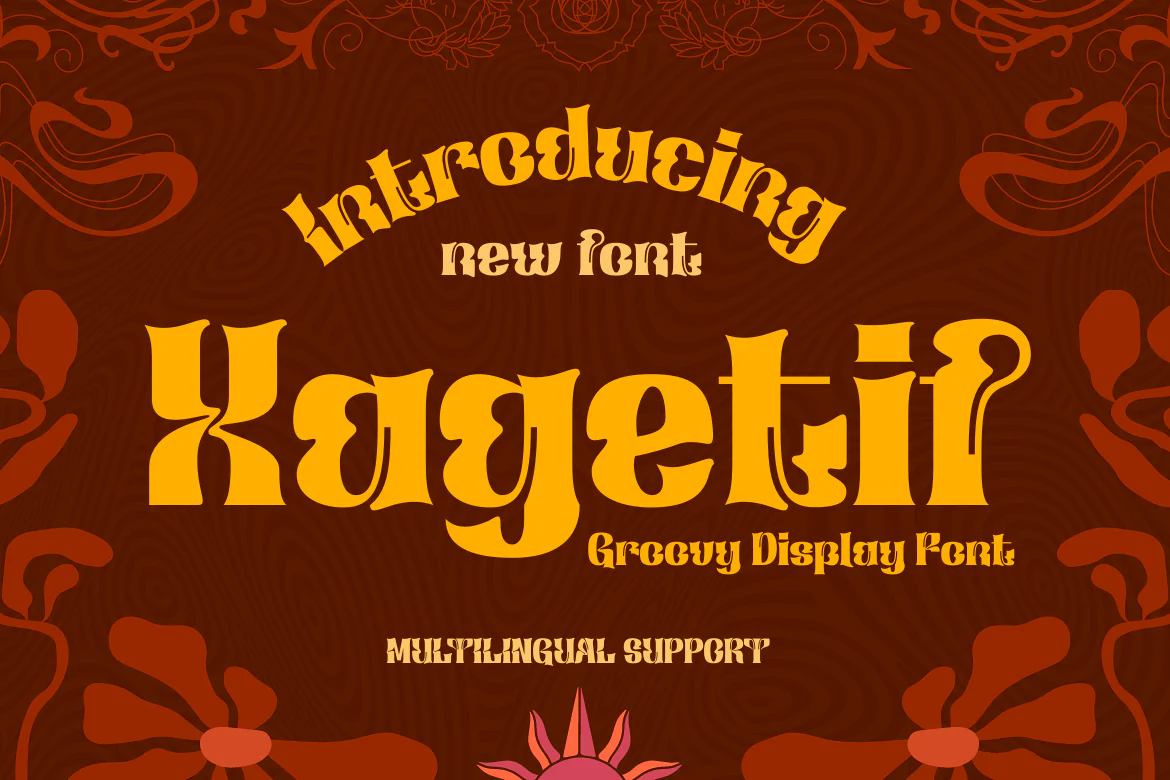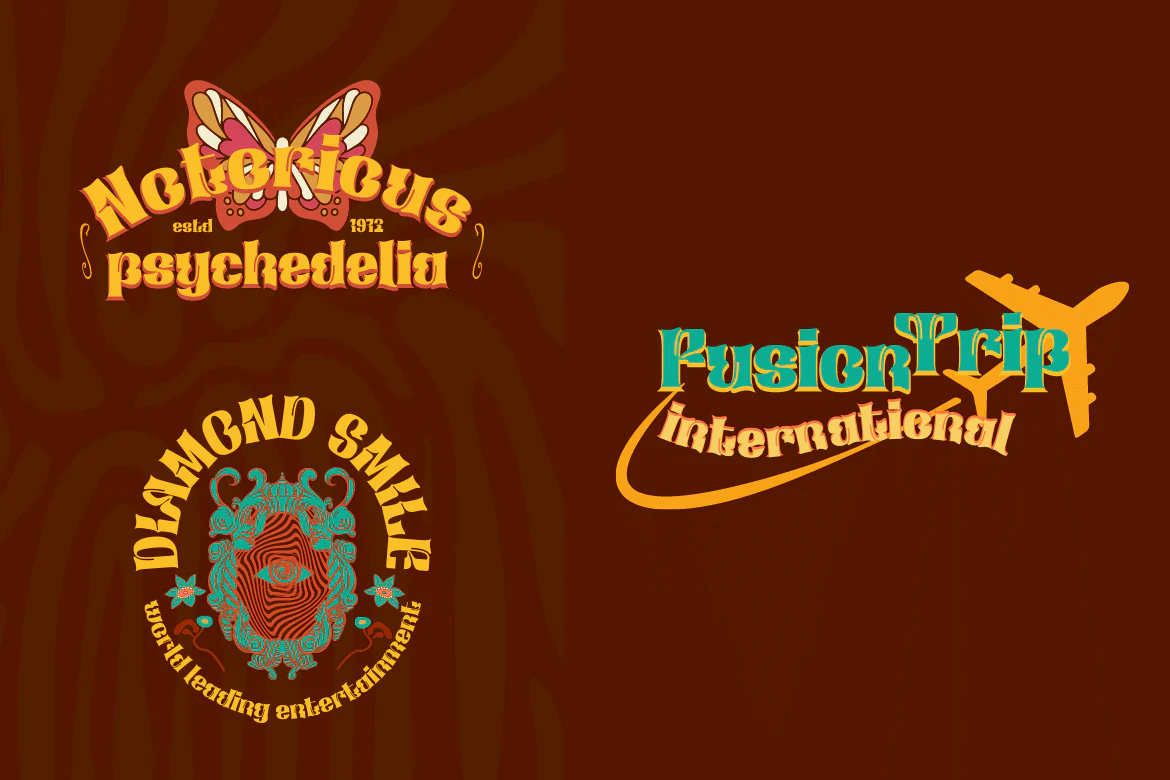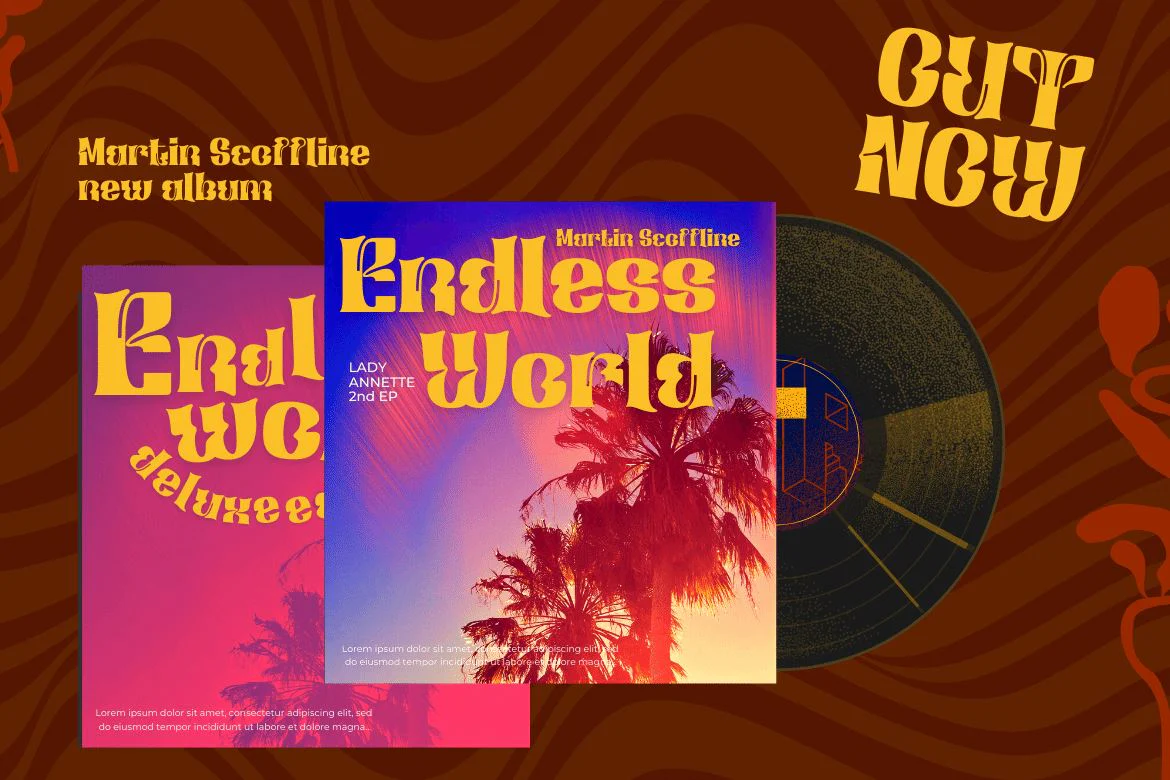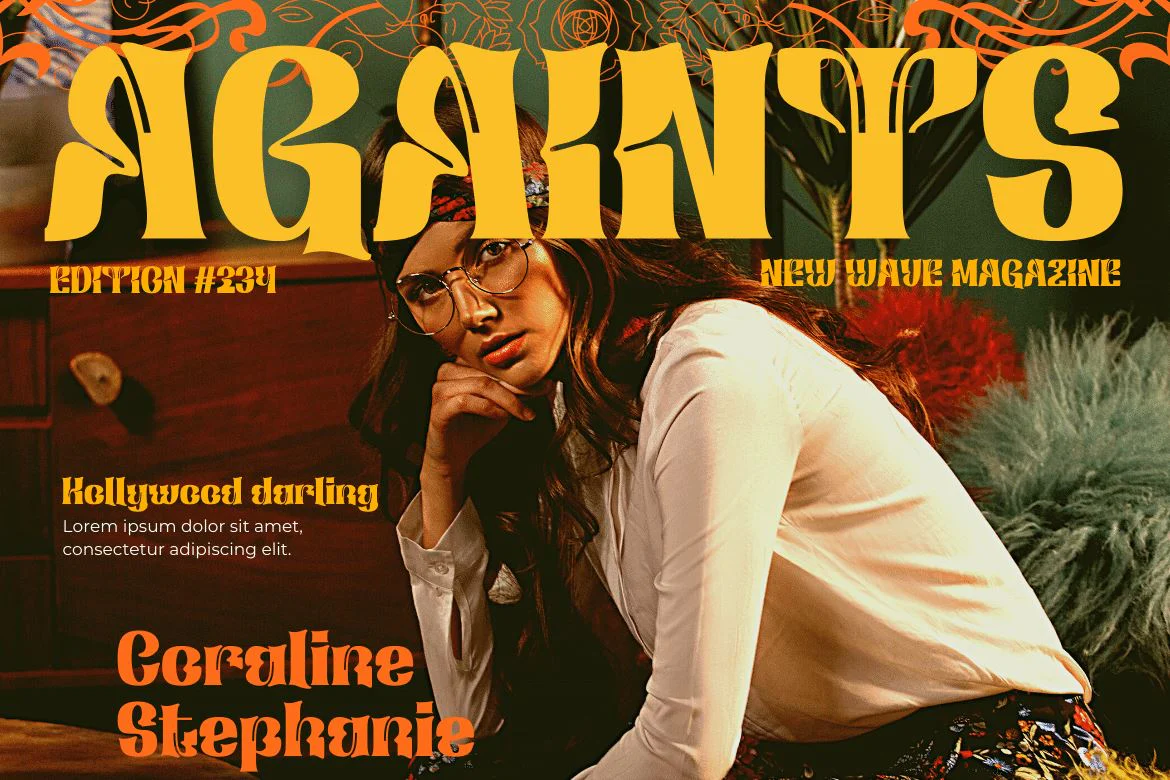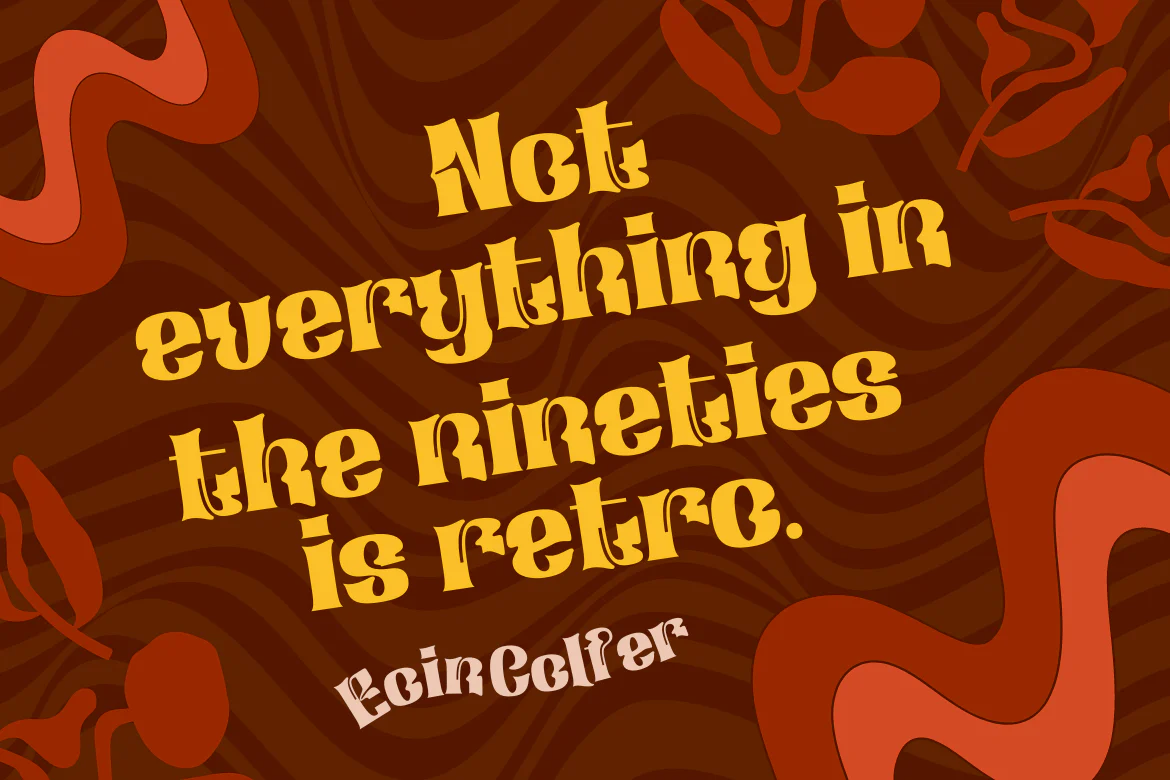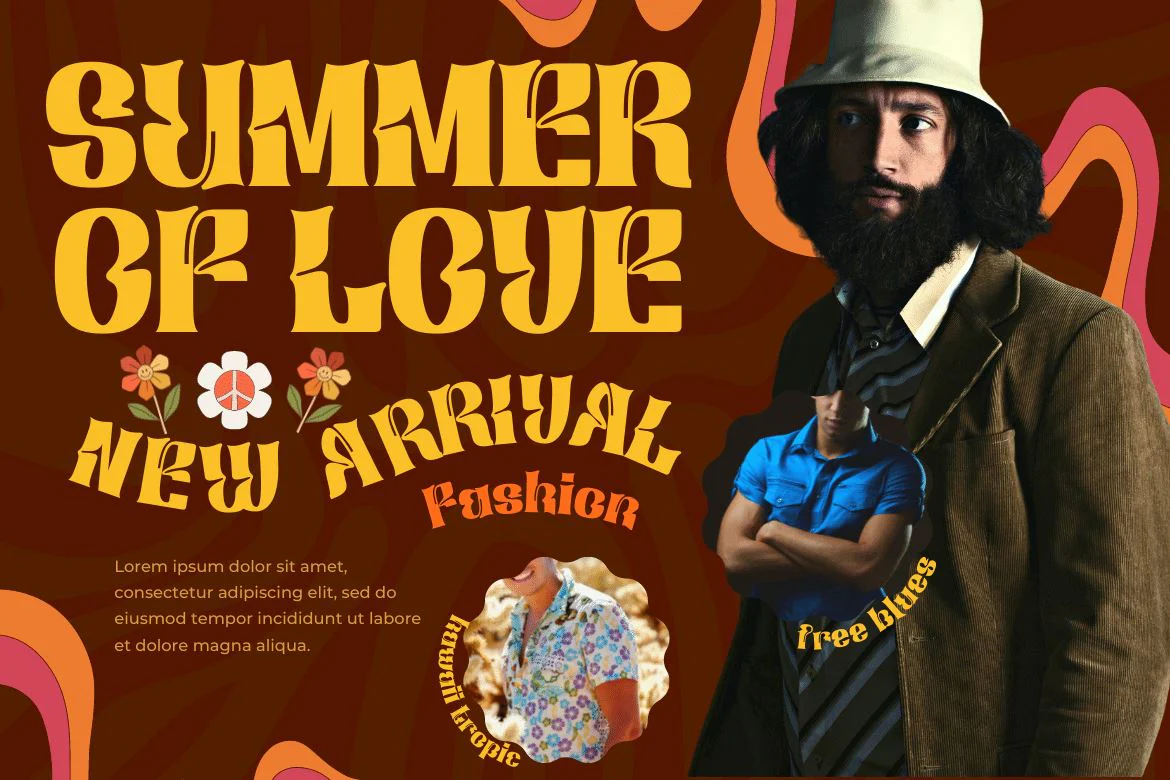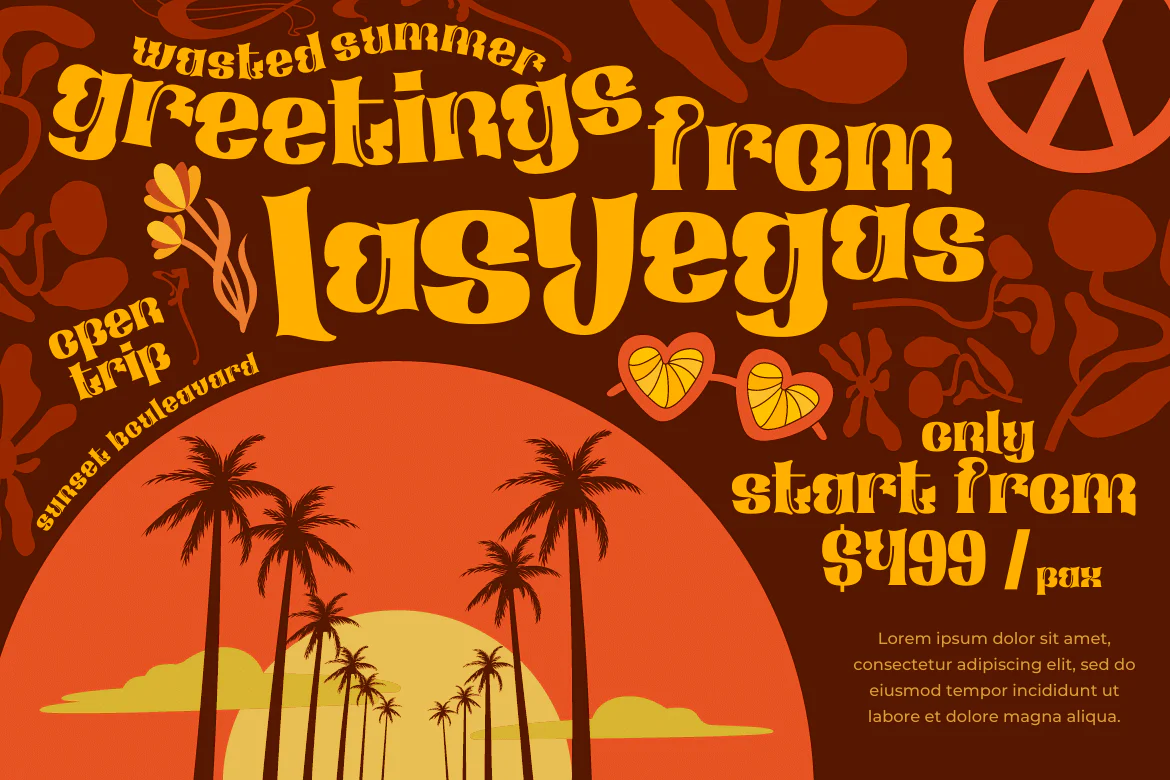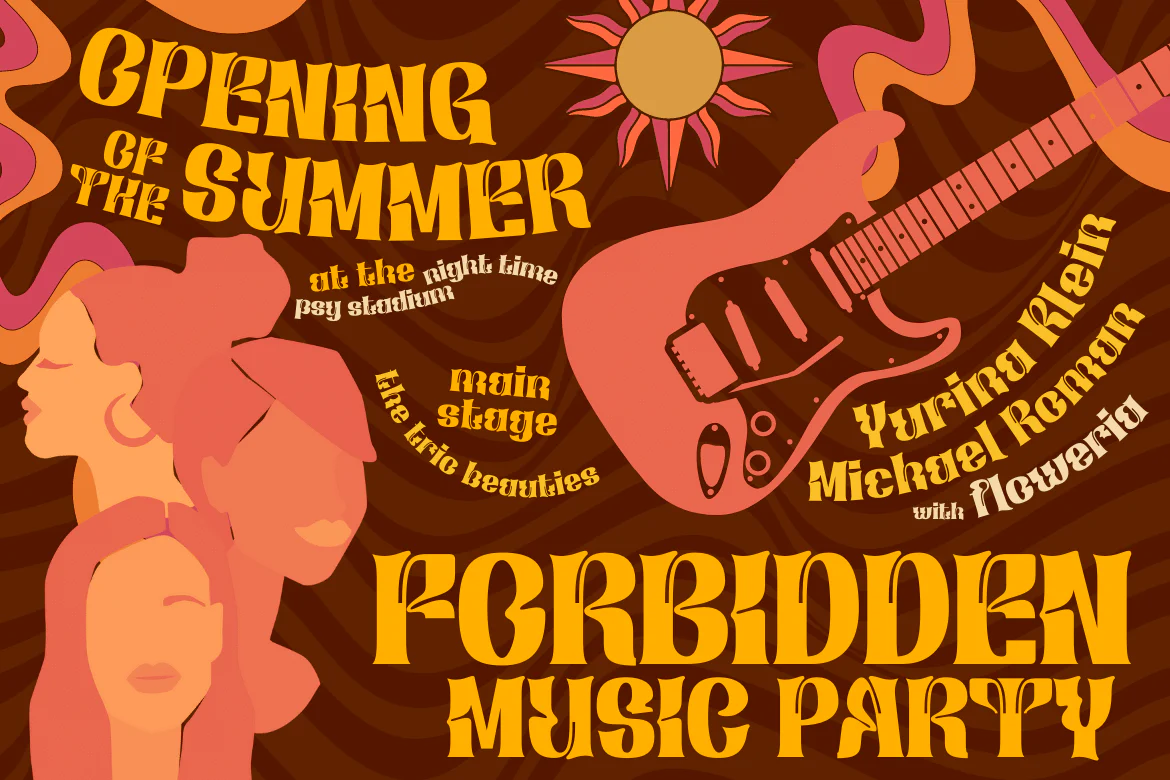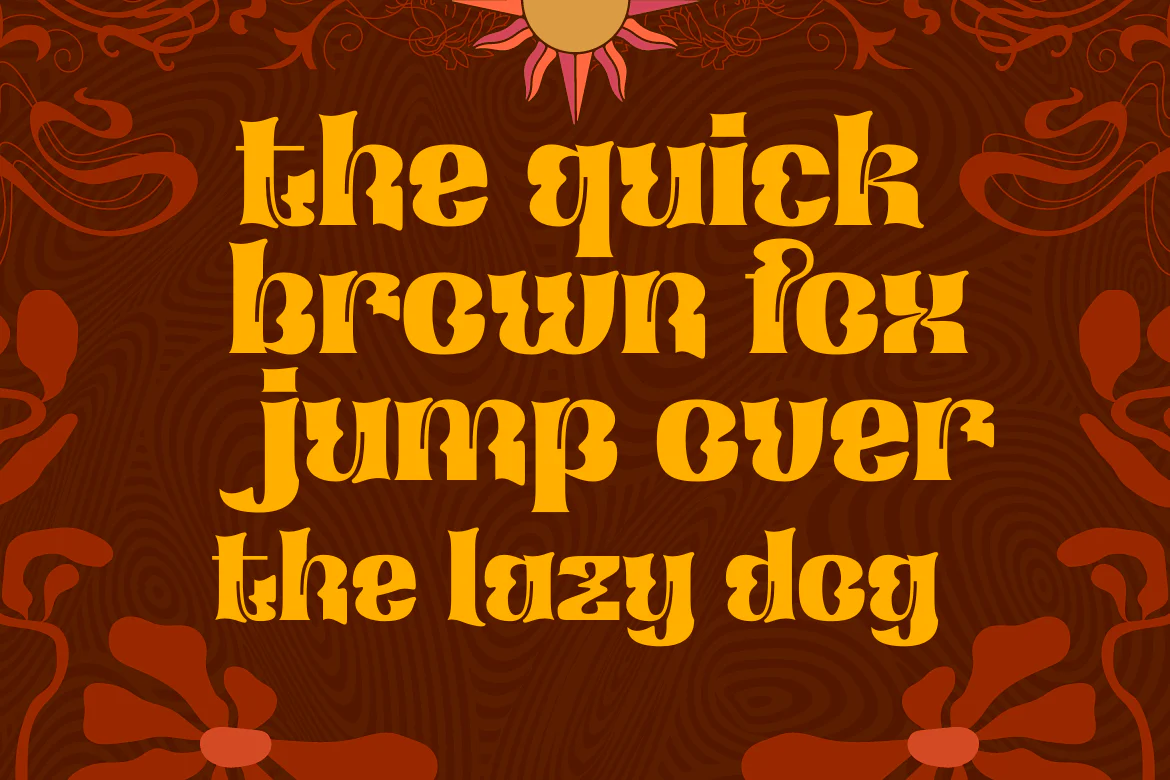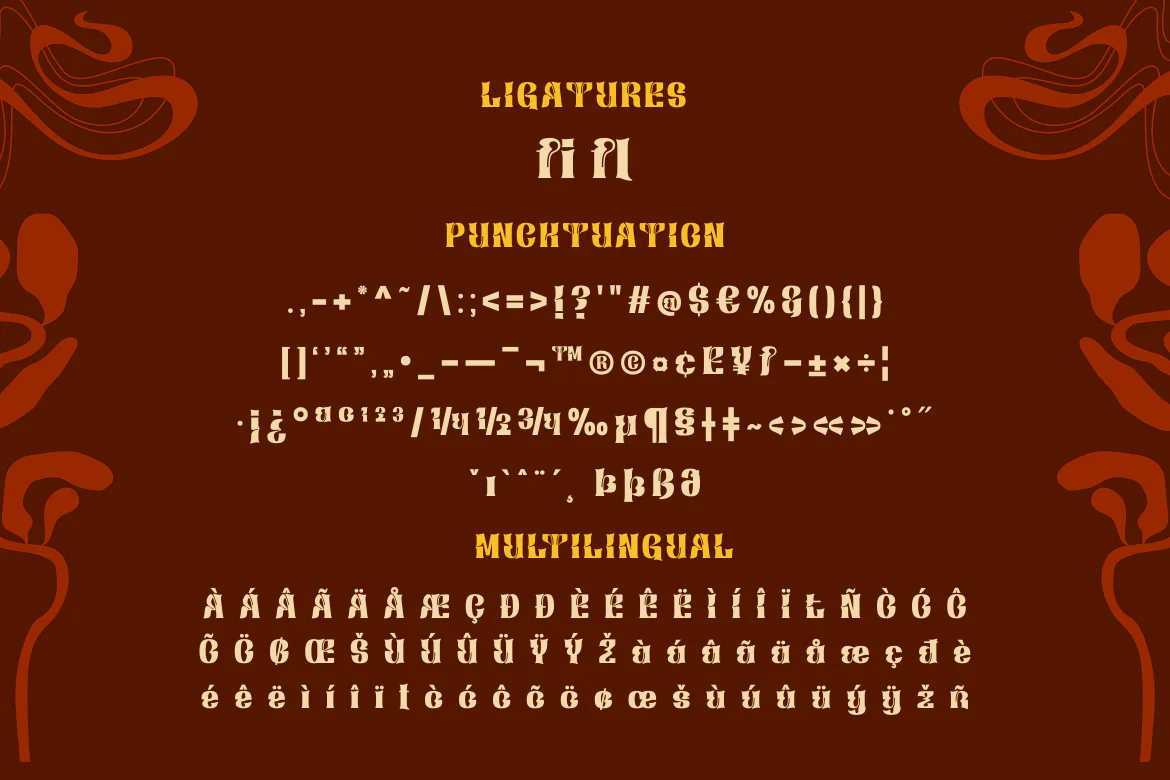
Xagetif | Groovy Retro Font
Grab our new font, Xagetif Groovy font, and start creating your own custom project. Use it to add a little flair to your editorial work or use it for branding or product packaging with a bold and fun character.
Time to add some oomph to your next project with this font. This retro-inspired typeface features a psychedelic, bold and fun character ideal for branding and product packaging. This elegant typography is simple and contemporary but with a touch of simplicity that gives it a modern feel. To create your own custom project, start using this font now!
Grab our new font, Xagetif Groovy font, and start creating your own custom project. Use it to add a little flair to your editorial work or use it for branding or product packaging with a bold and fun character.
Time to add some oomph to your next project with this font. This retro-inspired typeface features a psychedelic, bold and fun character ideal for branding and product packaging. This elegant typography is simple and contemporary but with a touch of simplicity that gives it a modern feel. To create your own custom project, start using this font now!